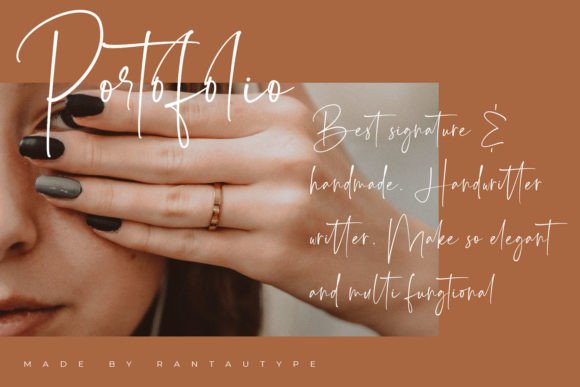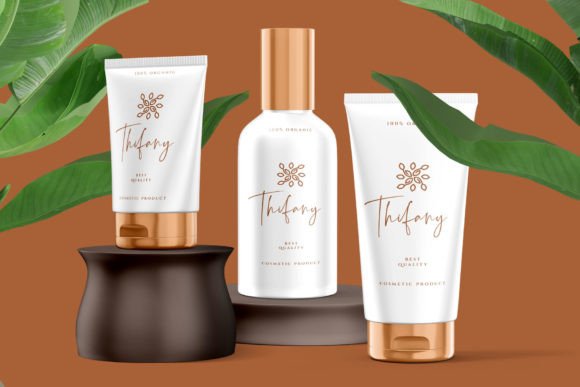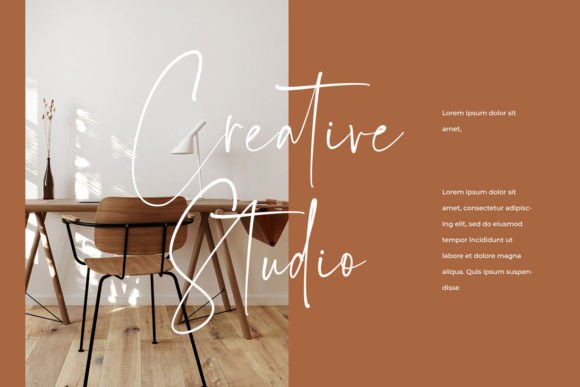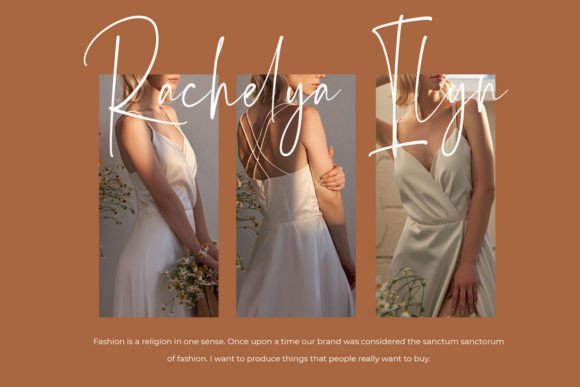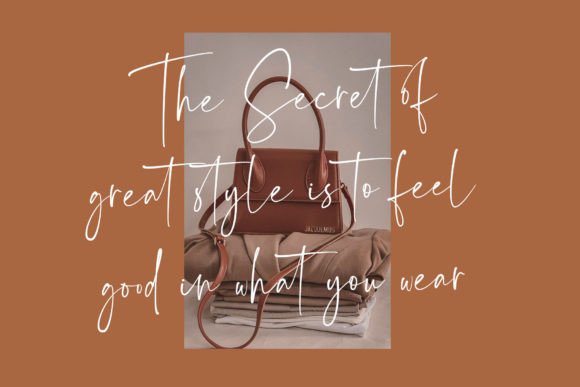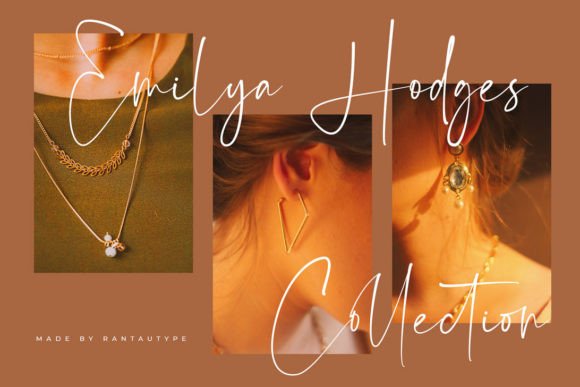
The Perfect Script Font for Your Next Design Project
Have you ever been stuck on a design project, trying to find the perfect font to convey the elegance and sophistication you envision? I know I have. It’s that moment of frustration, staring at a blank screen, when suddenly, the right font pops into your mind and everything falls into place. For me, that font is Arthamyn, a chic signature script font that exudes luxury and refinement.
Arthamyn Font is perfect for branding, logos, and invitations, adding a touch of class to any design. Its fluid strokes and graceful curves evoke a sense of refinement, making it a valuable asset for designers. With its distinct style and attention to detail, this font is sure to leave a lasting impression on your audience.
Arthamyn Font Key Features
- Font Family: Arthamyn Font
- Font Size: 20,000+ glyphs, making it a highly legible font
- Unique Characteristics: Features a unique blend of modern and ancient styles, with intricate details and ornate flourishes
Designer Review: Arthamyn Font
I had the chance to dive into the Arthamyn Font and share my honest thoughts on its design.
- Unique and mystical vibe: The font’s design feels truly one-of-a-kind, capturing a mystical atmosphere that’s perfect for fantasy-themed projects.
- High level of detail: The intricate details and textures within the font add depth and character, making it stand out from more generic fonts.
- Good legibility: Despite the intricate design, the font remains legible even at smaller font sizes, which is essential for most design applications.
- Compatibility issues: Some users reported issues with compatibility across different operating systems and browsers, which may impact its usability.
- Limited font size range: The font’s design may not be suitable for very large or very small font sizes, where it may lose its intricate details.
Overall, the Arthamyn Font is a unique and captivating design that’s perfect for projects that require a mystical or fantasy-themed aesthetic. However, its compatibility and font size limitations may impact its usability in certain situations.
The Arthamyn Font is suitable for various design projects, including:
- Typography-based designs, such as posters, flyers, and brochures.
- Branding and logo designs, where a unique and